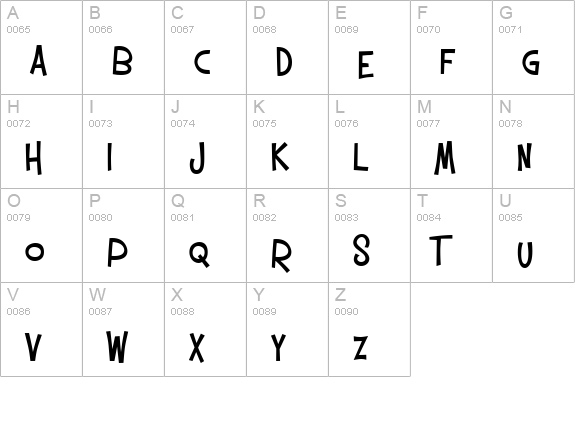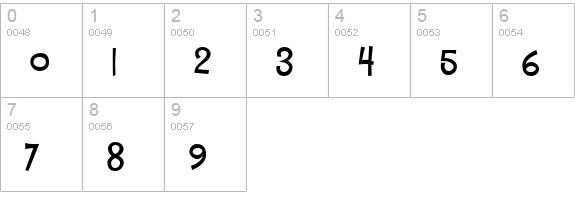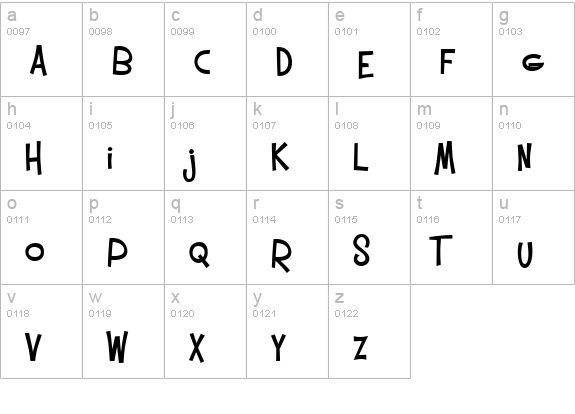
Mister Sirloin BTN Well Font Details
Mister Sirloin BTN Well font is a versatile and modern typeface that exudes sophistication and elegance. With its clean lines and bold presence, this font is perfect for a wide range of design projects. Whether you're creating a sleek logo, eye-catching poster, or stylish website, Mister Sirloin BTN Well font will elevate your design to the next level. The best part? Mister Sirloin BTN Well font is completely free to download at FontsMarket.com. This means you can access this high-quality font without any cost, making it a valuable addition to your design toolkit. Don't miss out on the opportunity to enhance your projects with the timeless appeal of Mister Sirloin BTN Well font - download it today and let your creativity shine!